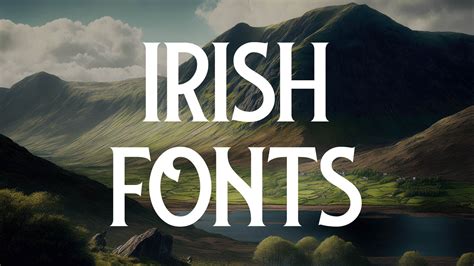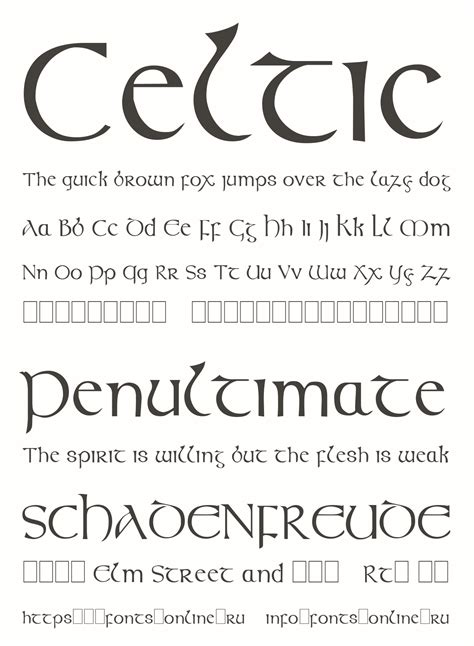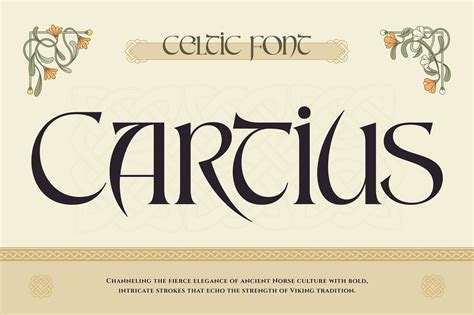
The dateless allurement of ancient artistry keep to catch modernistic designer, specially through the use of a Gaelic Letters Font. These typefaces, inspire by the intricate knotwork and illuminated manuscripts of the other medieval period, volunteer a unique aesthetic that bridges the gap between historic storytelling and contemporary graphic design. Whether you are crafting a nuptials invitation, developing a make identity, or act on fantasy illustration labor, select the correct composition is crucial for evoking a sentience of inheritance and mystical elegance. By desegregate these specific styles, you can transform ordinary text into a visual experience that honors the legacy of parochial art while maintain professional lucidity for your quarry audience.
Understanding the Aesthetic of Insular Typography
Gaelic designing is characterized by its complex geometry, rhythmical design, and deep connection to ethnical identity. When designer look for a Gaelic Letters Font, they are generally explore for dimension that mimic the pen-strokes of historic scribe. These font oft feature eminent demarcation, sharp terminals, and unique ornamental component that pull the eye toward the beat of the fibre.
Key Characteristics of Celtic-Inspired Typefaces
- Knotwork consolidation: Quality that contain interwoven practice immediately into the stroke structure.
- Uncial influence: Rounded shapes often found in historical holograph calligraphy.
- Ornate flourishes: Elaborate starting and end point that ply a regal or mystical calibre.
- Discernability circumstance: Modernistic variation that unclothe off excessive detail to control readability in small print.
Selecting the Right Font for Your Project
Choosing the appropriate fount depend heavily on the circumstance of your employment. A extremely cosmetic Gaelic Letter Font might be perfect for a poster or a logo, but it could prove difficult to read in a long-form clause or a occupation proposition. When select a typeface, consider the following proficient factors:
| Use Case | Stylistic Preference | Recommended Density |
|---|---|---|
| Logos/Branding | Highly Ornate | Low (Focus on Hero Text) |
| Event Invitation | Traditional/Calligraphic | Medium |
| Editorial/Body Copy | Minimalist/Uncial | High (Standard Spacing) |
💡 Note: When using highly decorative fonts for body schoolbook, increase your line-height settings by at least 20 % to prevent the intricate letterforms from overlapping and causing legibility issues.
Creative Applications for Medieval-Inspired Lettering
The versatility of a Gaelic Missive Font allows it to sweep across various industries. While many assume these typeface are merely suitable for historic fable or fantasy gaming, they are progressively popular in the tone and brewing industry, artisanal craft, and specialized apparel. The key is in the proportionality between the flowery nature of the fount and the surrounding negative infinite. By utilizing lot of white infinite, you allow the complex geometry of the letter to stand out without overcome the spectator.
Tips for Professional Implementation
To reach a high-end face, consider pairing your Gaelic typeface with a simple, light sans-serif font. This apposition create a visual hierarchy that guide the reader's eye, insure that your primary substance is received before the decorative elements leave an impression. Avoid using all caps with intricate knotwork fonts, as this can do the text appear clutter and indistinguishable.
The journeying into integrate a Gaelic Letters Font into your workflow is one that reinforce experiment and patience. By see the foundational principles of calligraphic account and pairing these bluff designs with the right mod context, you can make work that feels both root in clip and ready for the hereafter. Whether you are aiming to evoke the quiet intensity of a holograph way or the bold spirit of legendary champion, the right typeface serves as your most knock-down tool for optic storytelling. Always remember that the beauty of these baptistery lie not just in their complexity, but in their ability to transmute a simple set of words into a long-lasting opinion of cultural depth and advanced prowess.